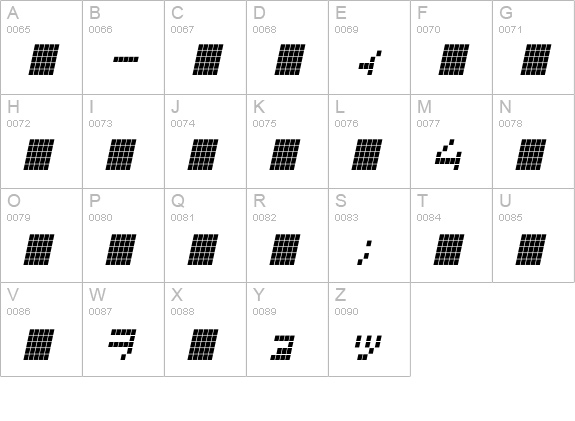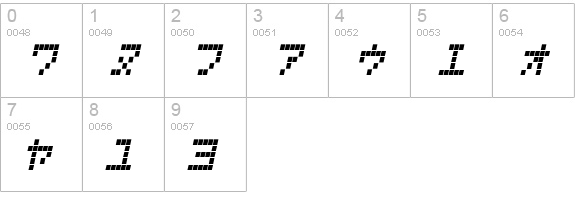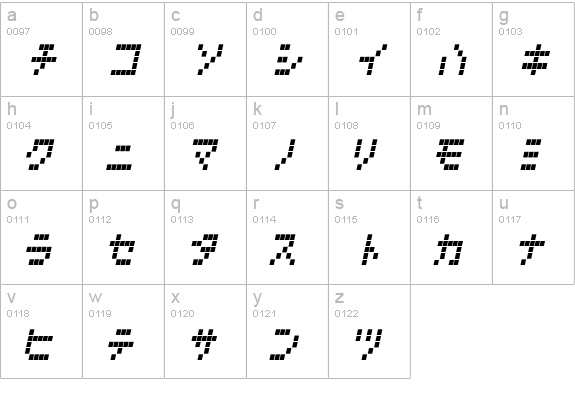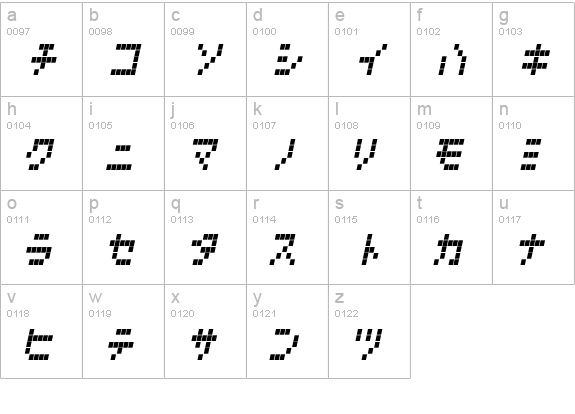
LCDK Italic Font Details
LCDK Italic is a distinctive, italic variant in the LCDK typeface family \xE2\x80\x94 well suited to design and typography projects.
Introducing LCDK Italic font, a stylish and versatile typeface that will elevate your designs to new heights. With its sleek and modern aesthetic, this font is perfect for adding a touch of sophistication to any project. The LCDK Italic font boasts clean lines and a unique italicized design, making it stand out from the crowd. Whether you're designing for print or digital, this font will make a bold statement and captivate your audience. What's even better is that LCDK Italic font is available for free! That's right, you can download this amazing font without spending a dime. FontsMarket.com is proud to offer this font as a free download, making it accessible to designers and creators all around the world. So why wait? Enhance your designs with the elegance and finesse of LCDK Italic font. Download it for free at FontsMarket.com and start creating stunning visuals today.